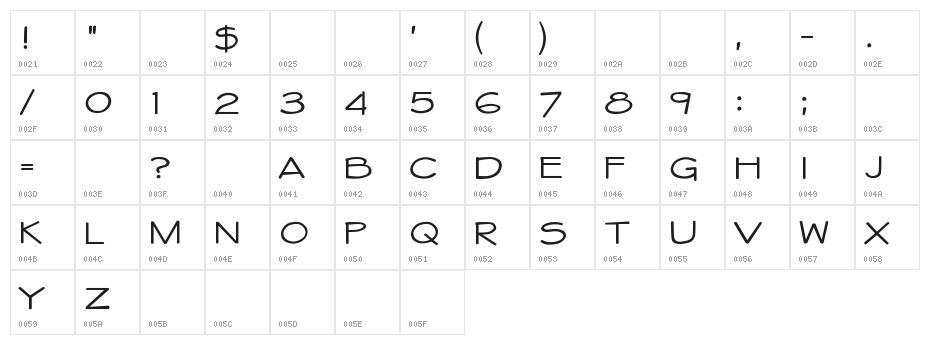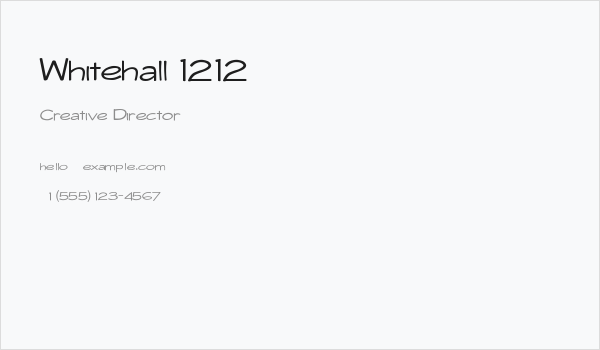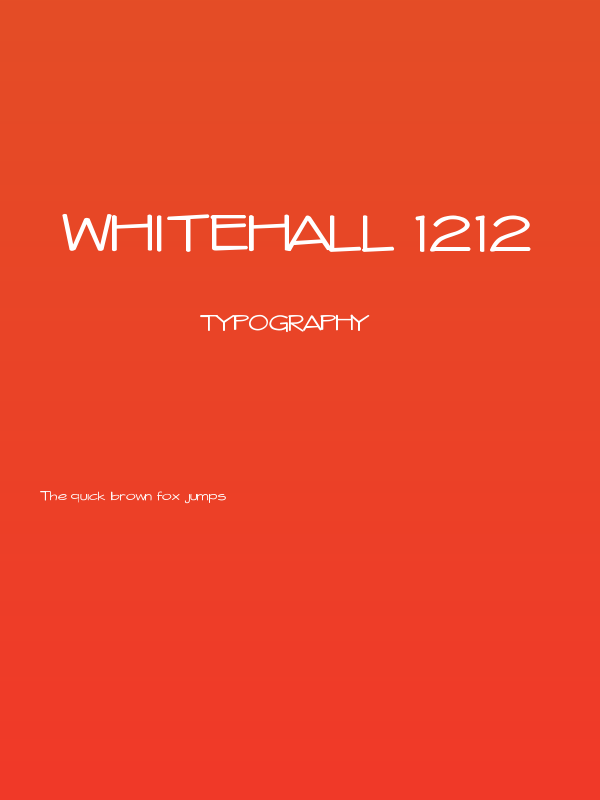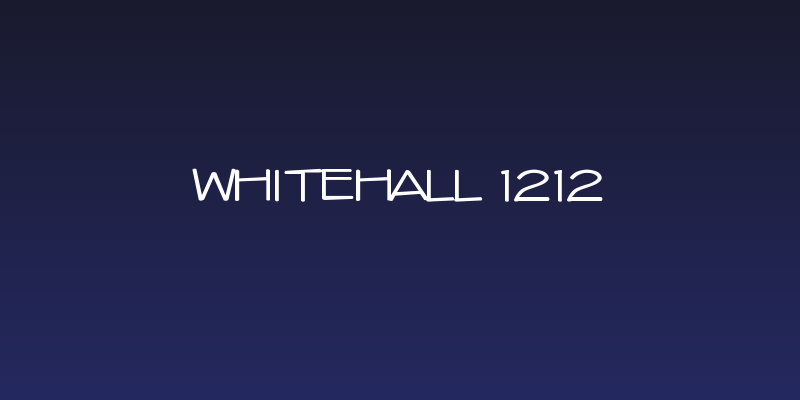
Whitehall 1212 Font
Whitehall 1212 Description
This font features a playful and casual design with rounded edges and a handwritten style. The characters have a consistent stroke width, giving it a uniform appearance. The uppercase and lowercase letters maintain a friendly and approachable look, making it suitable for informal and creative projects. The numerals and special characters are designed to match the overall style, ensuring coherence across all text elements. This font's simplicity and charm make it versatile for various design needs.
| Proposed Projects | Ideal for children's books, greeting cards, playful branding, and casual invitations. |